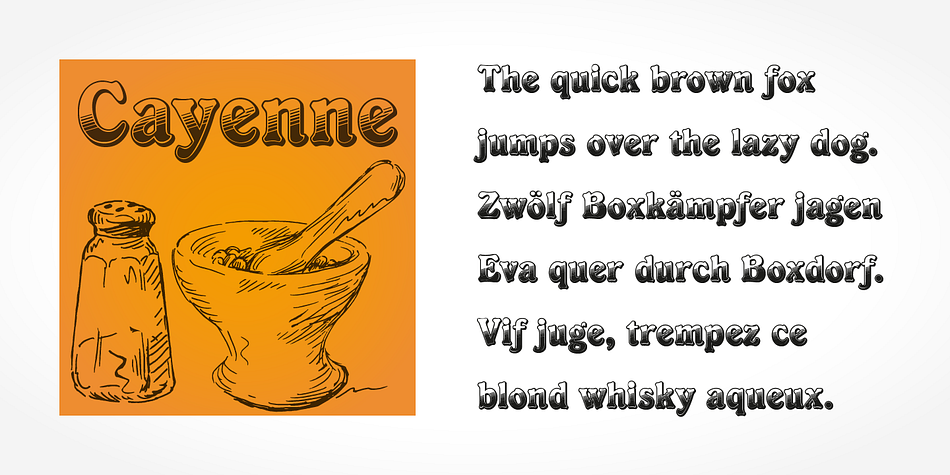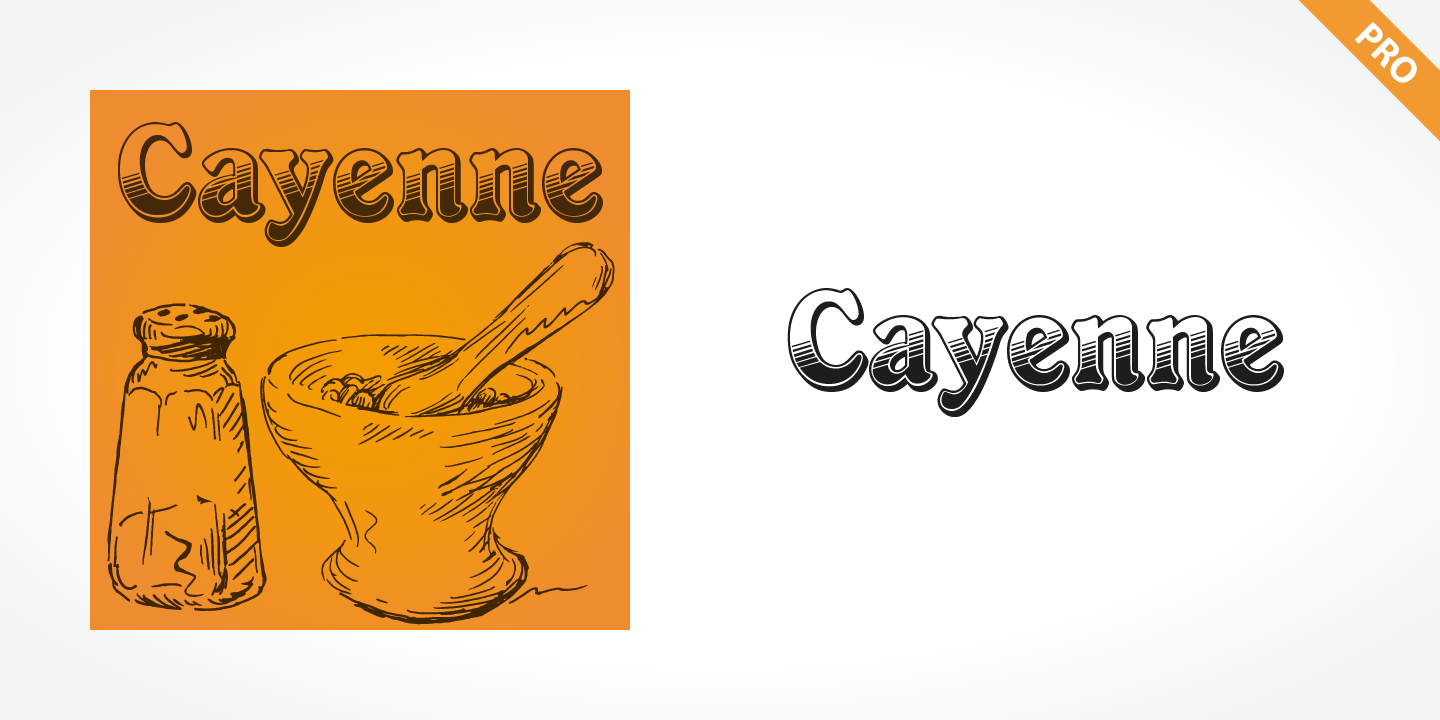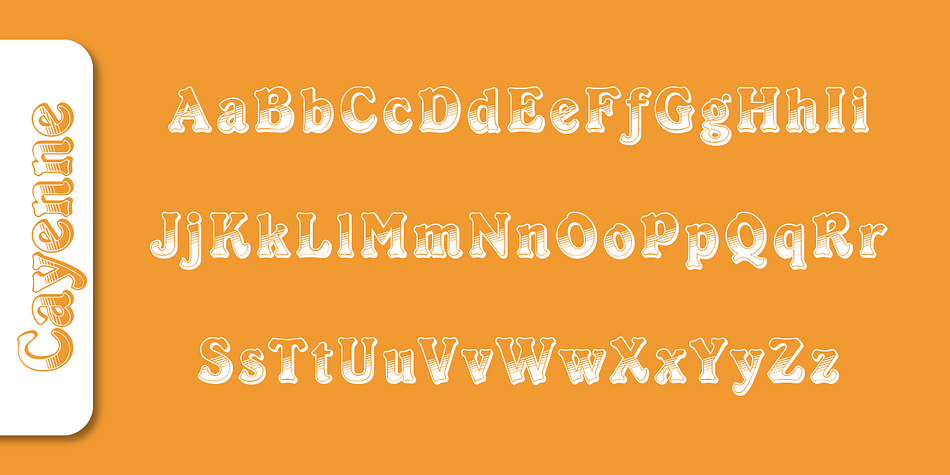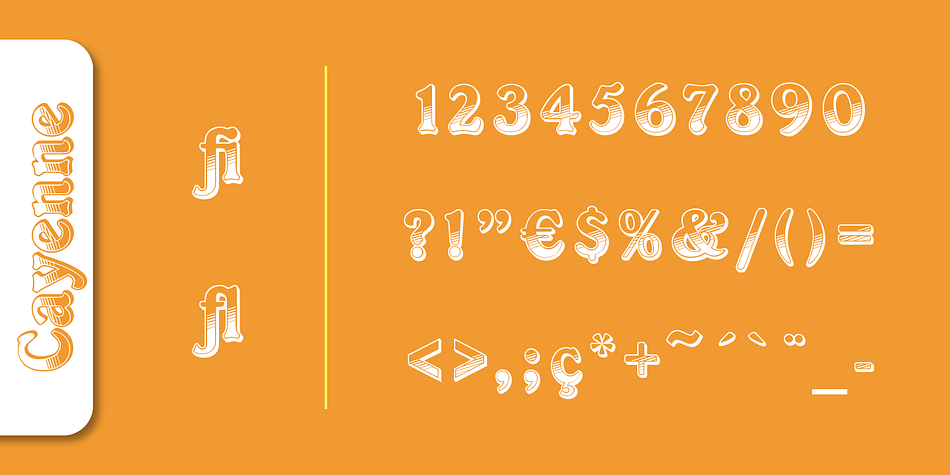
Cayenne Pro
Cayenne Pro is a display and retro font published by SoftMaker.
Cayenne Pro is a light-hearted, fun font. From the shapes of the letters to the shading within the outline forms, it displays a variety of details making it unique and appealing.